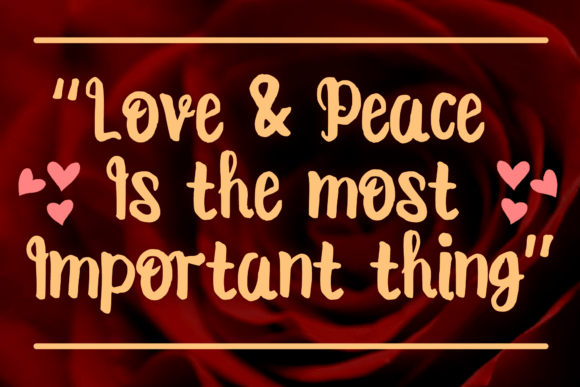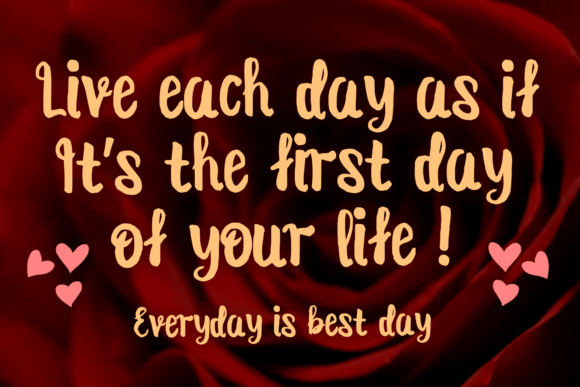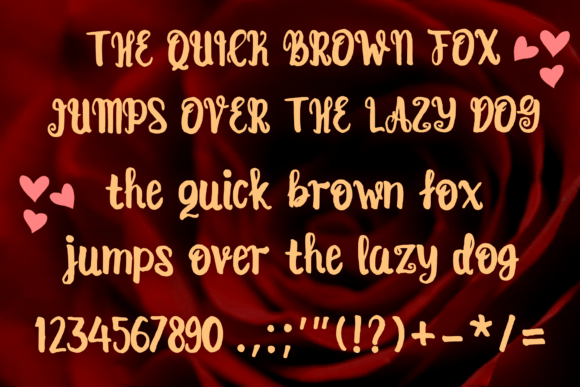
Introducing Comic Adore Font: The Ultimate Choice for Fun and Casual Designs
Are you tired of using the same old fonts for your designs? Look no further! Comic Adore Font is here to add a touch of fun and playfulness to your creations. This script display font is perfect for designers and crafters who want to add a casual and carefree vibe to their work. In this article, we’ll dive into the features and benefits of Comic Adore Font, and explore the various ways you can use it to create stunning designs.
What is Comic Adore Font?
Comic Adore Font is a fun and versatile script display font that can be used for a wide range of design projects. Its unique and playful style makes it perfect for adding a touch of whimsy to your creations. Whether you’re designing for a client or working on a personal project, Comic Adore Font is sure to make your designs stand out.
Features of Comic Adore Font
So, what makes Comic Adore Font so special? Here are just a few of its key features:
- Fun and playful style: Comic Adore Font has a unique and carefree style that’s perfect for adding a touch of humor and whimsy to your designs.
- Versatile: This font can be used for a wide range of design projects, from t-shirts and book designs to greeting cards and posters.
- Easily readable: Despite its playful style, Comic Adore Font is still easily readable, making it perfect for designs that need to convey a message.
- Perfect for themed designs: Comic Adore Font is especially well-suited for Christmas and Valentine’s Day themed designs, but it can also be used for other holidays and occasions.
Uses for Comic Adore Font
So, what can you use Comic Adore Font for? The possibilities are endless! Here are just a few ideas to get you started:
- T-shirts and apparel: Add a fun and playful touch to your t-shirt designs with Comic Adore Font.
- Book designs: Use Comic Adore Font to add a touch of whimsy to your book covers, illustrations, and interior designs.
- Greeting cards: Create fun and playful greeting cards for holidays and special occasions with Comic Adore Font.
- Stickers and posters: Add a pop of fun and color to your stickers and posters with Comic Adore Font.
- Social media graphics: Use Comic Adore Font to add a touch of personality to your social media graphics and posts.
Why Choose Comic Adore Font?
With so many fonts to choose from, why should you choose Comic Adore Font? Here are just a few reasons:
- Unique style: Comic Adore Font has a unique and playful style that’s sure to make your designs stand out.
- Versatility: This font can be used for a wide range of design projects, making it a great addition to your font library.
- Ease of use: Comic Adore Font is easy to use and pairs well with a variety of other fonts, making it perfect for designers of all skill levels.
Tips for Using Comic Adore Font
Here are a few tips for getting the most out of Comic Adore Font:
- Experiment with different colors: Comic Adore Font looks great in a variety of colors, so don’t be afraid to experiment and find the perfect hue for your design.
- Pair with other fonts: Comic Adore Font pairs well with a variety of other fonts, so try pairing it with some of your favorite fonts to create a unique and interesting design.
- Use it for emphasis: Comic Adore Font is perfect for adding emphasis to certain words or phrases in your design, so don’t be afraid to use it to draw attention to important information.